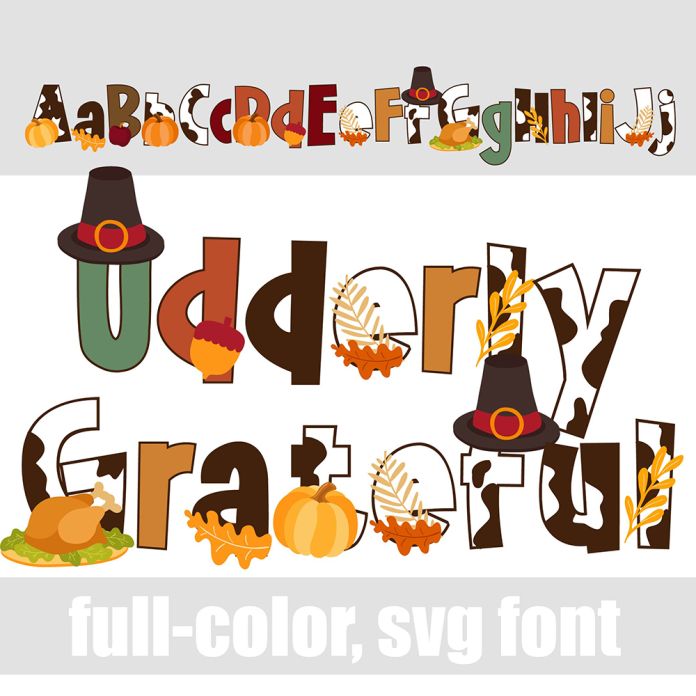
This full-color font features a fun, crafty, sans serif, alternating with leaves, pilgrim hats, turkeys and more. There is an alt version upper and lowercase that you can access through Silhouette's glyph map. This font works best for titles, displays, posters and more. Please note color fonts will show as black in non compatible programs. This font type is compatible with Silhouette Studio.